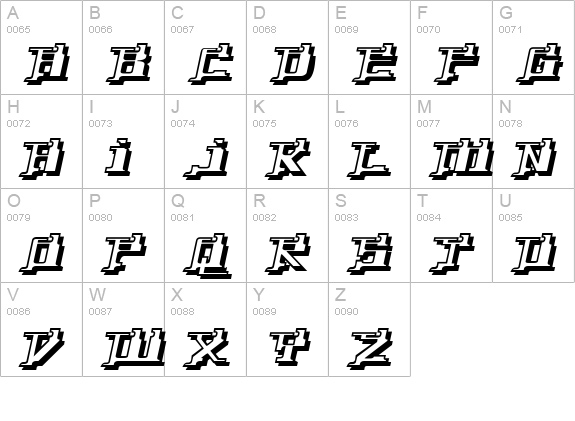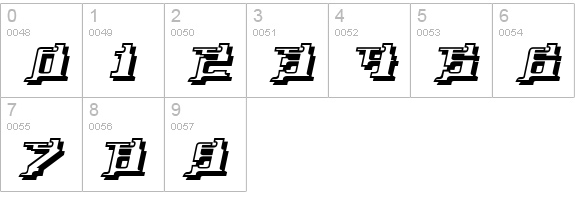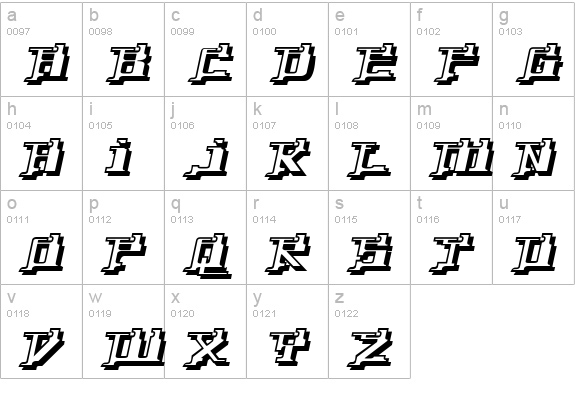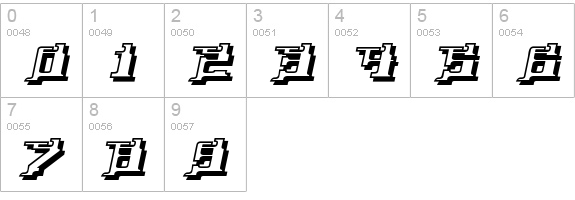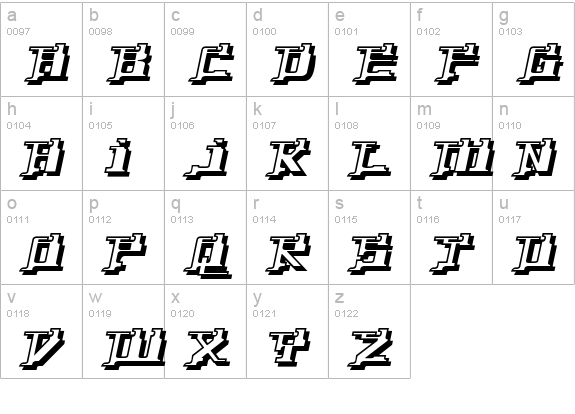
Yytrium Dioxide Font Details
Yytrium Dioxide is a modern and sleek font that exudes sophistication and elegance. With its clean lines and sharp edges, this font is perfect for adding a touch of class to any design project. The Yytrium Dioxide font is versatile and can be used for a variety of purposes, from branding to editorial design. The best part about Yytrium Dioxide font is that it is completely free to download at FontsMarket.com. This means that you can elevate your designs without breaking the bank. Whether you're a professional designer or just getting started, this font is a valuable addition to your creative toolkit. Download Yytrium Dioxide font today and bring a touch of refinement to your next project.